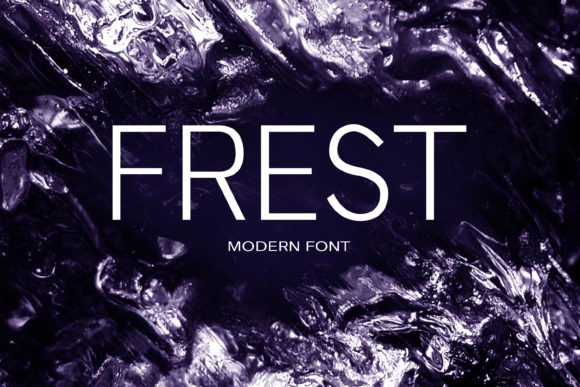
Have you ever stared at a blank canvas, eager to bring your design ideas to life, but struggled to find the right font to match your vision? That’s a feeling many creatives can relate to. For designers, typography is an essential element that can make or break the overall aesthetic of a project.
Enter Frest Font, a smart and cool sans serif font designed to help you express your creativity with ease. With its unique style, Frest Font is perfect for a wide range of design applications, from digital products to print materials. Whether you’re a seasoned designer or just starting out, Frest Font is an invaluable tool that can help you take your designs to the next level.
Frest Font Key Features
- Font Family: Frest Font is a modern sans-serif font family designed for digital use.
- Character Count: The font family includes a wide range of characters, including Latin, Cyrillic, and Greek scripts, with over 1,000 glyphs.
- Font Size: Frest Font is available in 5 weights: Light, Regular, Medium, Bold, and Black, with font sizes ranging from 8 to 72 points.
- Resolution: Frest Font is optimized for high-resolution displays, with clear and crisp rendering at resolutions up to 300 DPI.
- Unique Characteristics: Frest Font features a clean and minimalist design, with a focus on legibility and readability, making it ideal for digital interfaces, signage, and branding materials.
Frest Font Review
Overall, I was quite impressed with the Frest Font, but as with any font, it has its strengths and weaknesses. Here’s my honest take:
- Clean design**: The Frest Font has a sleek, modern look that’s perfect for clean and minimalist designs.
- High legibility**: The font is highly readable, even at smaller sizes, making it ideal for body text and articles.
- Neutral tone**: The font’s neutral tone makes it versatile and easy to pair with other fonts and colors.
- Not ideal for headings**: While the font is great for body text, it may not be the best choice for headings due to its lack of contrast and visual impact.
- Limited expressiveness**: The font’s clean design may make it feel a bit sterile or unemotional, which can be a limitation in certain design contexts.
Overall impression
The Frest Font is a solid choice for clean and minimalist designs, but it may not be the best fit for every project. With a little creativity and pairing with other fonts, it can add a touch of sophistication and elegance to your designs.
Frest Font Practical Application Guide
Tips for Getting the Most Out of Frest Font
Use Frest Font for titles, headings, or body text to add a unique touch to your designs.
Combine Frest Font with other fonts to create a visually appealing font combination.
Frest Font is ideal for:
– Creative projects, such as art portfolios or graphic novels.
– Marketing materials, such as brochures or flyers.
– Digital products, such as ebooks or online courses.
Alternatives to Frest Font
Montserrat is a sans-serif font designed by Julieta Ulanovsky. It is ideal for use in headings, titles, and body text where a clean and modern look is desired. Montserrat is more geometric and has a stronger x-height compared to Frest Font, making it suitable for digital interfaces and signage.
Open Sans is a sans-serif font designed by Steve Matteson. It is highly legible and works well for body text, making it a great alternative to Frest Font for long-form content. Open Sans has a more rounded feel and is optimized for digital screens, making it suitable for web and mobile applications.
Lato is a sans-serif font designed by Łukasz Dziedzic. It is highly versatile and can be used for both headings and body text. Lato has a more elegant feel compared to Frest Font and is suitable for use in corporate branding, advertising, and editorial design.